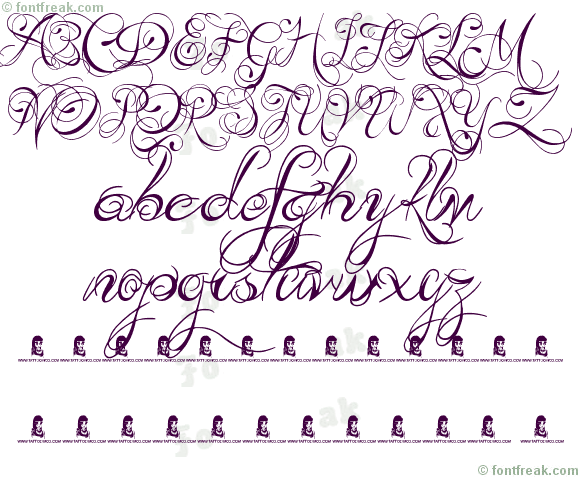
Kings and Queens
The "Kings and Queens" font, designed by Jonathan S. Harris in 2013, is a captivating script typeface that embodies elegance and sophistication. This decorative font features flowing, cursive letterforms with a delightful balance of thick and thin strokes, creating a dynamic visual contrast that captures attention. The graceful curves and swashes add a sense of whimsy, making it ideal for projects that require a touch of charm and personality.
With its unique visual characteristics, "Kings and Queens" is perfect for a variety of applications. It shines in wedding invitations, where its romantic flair can beautifully complement the theme of love and celebration. Additionally, this font can elevate movie posters, providing a dramatic touch that draws viewers in. Restaurant menus will benefit from its stylish presentation, enhancing the dining experience and reflecting the establishment's ambiance. Furthermore, "Kings and Queens" is an excellent choice for branding materials, allowing small business owners to create a memorable and distinctive identity.
In conclusion, the "Kings and Queens" font not only adds elegance and flair to any project but also resonates with those aiming to make a lasting impression. Its unique design and versatility make it a standout choice for anyone looking to enhance their visual communication. Don’t miss the opportunity to grab the Kings and Queens font free download and infuse your designs with its enchanting style.